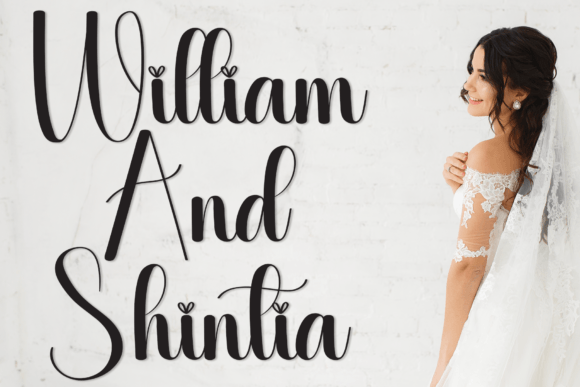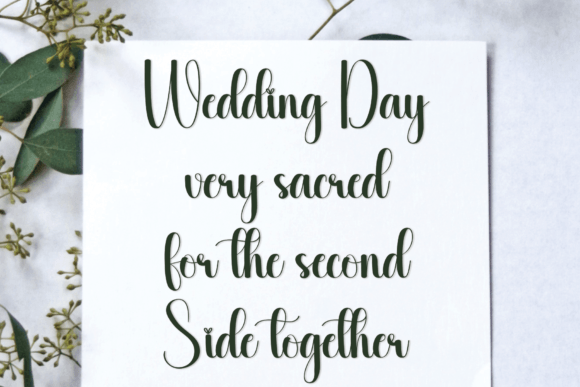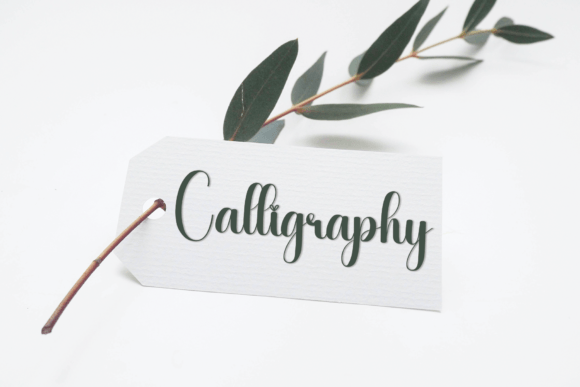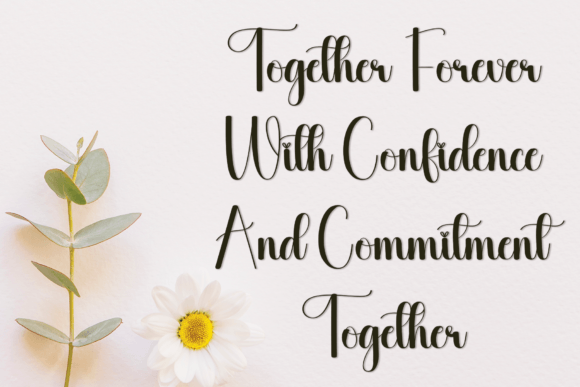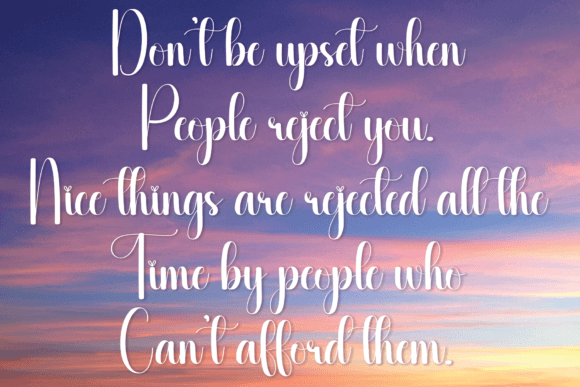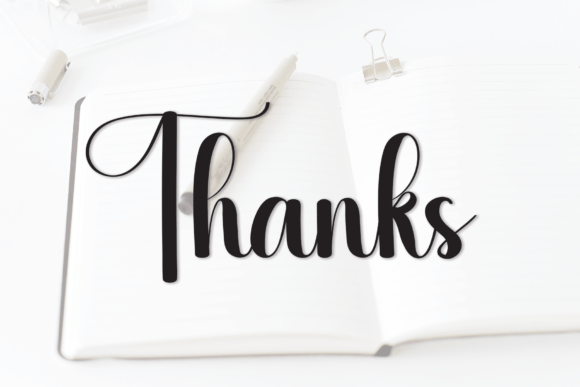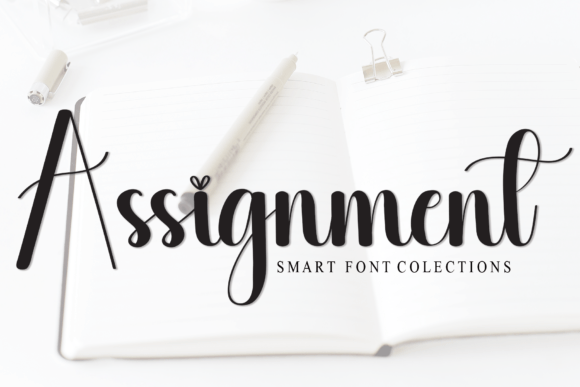
Introducing Assignment Font: A Sweet and Cursive Handwritten Delight
Are you tired of using the same old fonts in your designs? Look no further! Assignment Font is a beautiful, sweet, and cursive handwritten font that will add a touch of elegance and romance to your projects. This gentle font is perfect for designers and crafters who want to create stunning visuals that capture the heart and soul of their audience.
The Characteristics of Assignment Font
Assignment Font is a unique and charming font that boasts a range of characteristics that make it perfect for a variety of design projects. Some of its key features include:
- Sweet and Cursive Handwritten Style: Assignment Font has a beautiful, flowing script that is reminiscent of handwritten letters and notes. Its cursive style gives it a personal and intimate feel that will make your designs stand out.
- Gentle and Elegant: This font has a soft and gentle quality that makes it perfect for designs that require a touch of sophistication and elegance. Whether you’re creating wedding invitations, branding materials, or social media graphics, Assignment Font is sure to impress.
- Versatile: Assignment Font is incredibly versatile and can be used on a wide range of design projects. From digital graphics to print materials, this font will look stunning on any medium.
Design Ideas to Showcase Assignment Font
With Assignment Font, the design possibilities are endless! Here are some ideas to get you started:
- Wedding Invitations: Create beautiful and romantic wedding invitations that set the tone for the big day. Assignment Font is perfect for wedding stationery, and its elegant style will make your invitations truly unforgettable.
- Branding Materials: Use Assignment Font to create stunning branding materials such as logos, business cards, and brochures. This font will add a touch of personality and whimsy to your brand, making it more relatable and memorable.
- Social Media Graphics: Create eye-catching social media graphics that showcase your brand’s personality. Assignment Font is perfect for creating engaging and shareable content that will help you connect with your audience.
- Digital Art: Use Assignment Font to create stunning digital art pieces that showcase your creativity. Whether you’re creating illustrations, watercolor designs, or digital paintings, this font will add a beautiful touch to your artwork.
Why Choose Assignment Font?
So why choose Assignment Font over other fonts? Here are just a few reasons why this font stands out:
- Unique and Exclusive: Assignment Font is a unique and exclusive font that will make your designs stand out from the crowd. Its sweet and cursive handwritten style is sure to capture the attention of your audience.
- Easy to Read: Despite its elegant and cursive style, Assignment Font is incredibly easy to read. This makes it perfect for designs that require a clear and concise message.
- High-Quality: Assignment Font is a high-quality font that is designed to deliver exceptional results. Its smooth and flowing lines make it perfect for digital and print designs.
In conclusion, Assignment Font is a beautiful and versatile font that is perfect for designers and crafters who want to add a touch of elegance and romance to their projects. Its sweet and cursive handwritten style makes it perfect for a wide range of design projects, from wedding invitations to branding materials and social media graphics. With its unique and exclusive style, ease of readability, and high-quality design, Assignment Font is sure to become a favorite in your design arsenal.